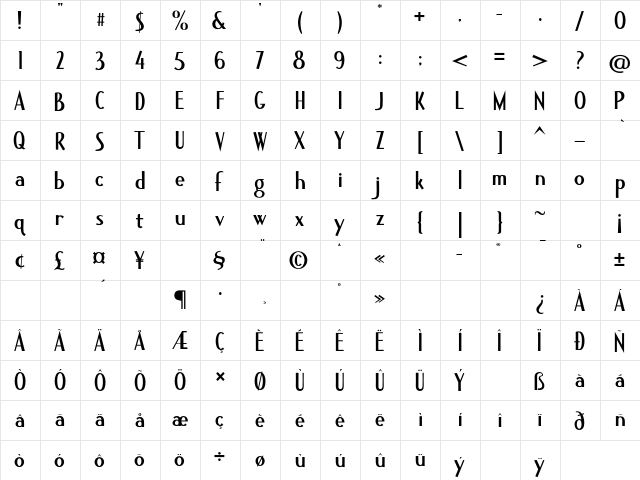
Bauer House Regular
| Designer | Joshua Korwin |
Design Context for Bauer House Typeface
Bauer House is a composed and adaptable typeface that performs quietly and consistently across a wide range of design contexts.